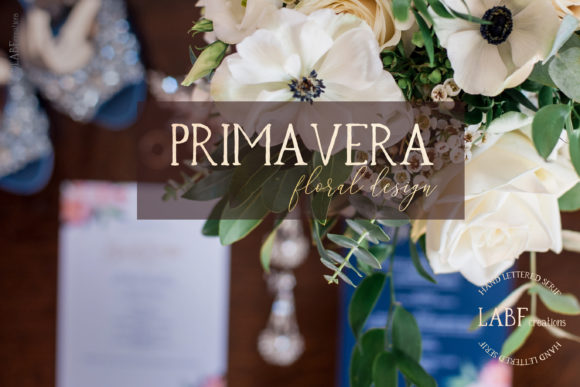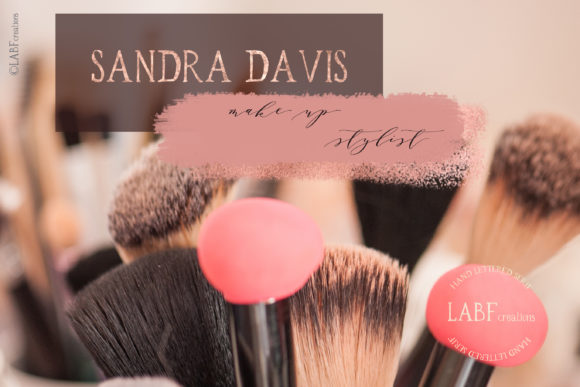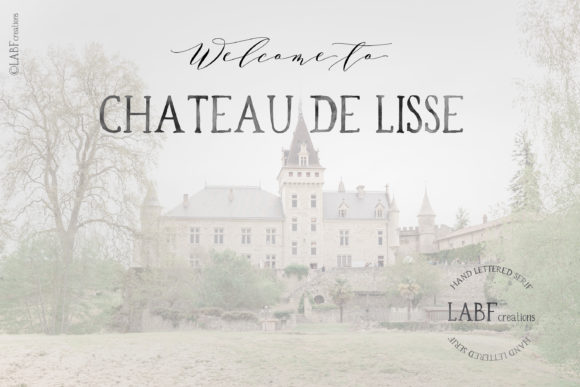
Introduction to Rochemont Font
Rochemont is a classic and rustic serif font.
Simple and with a bit of a royal vintage style, this font will level up each of your designs .